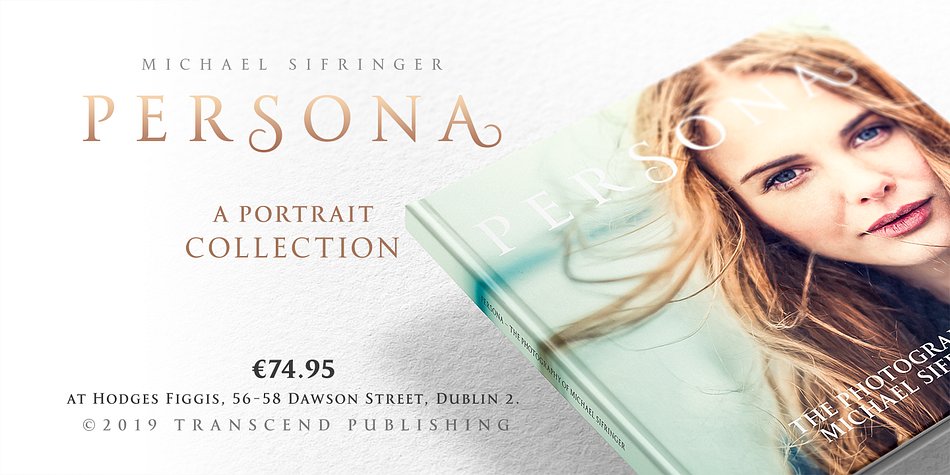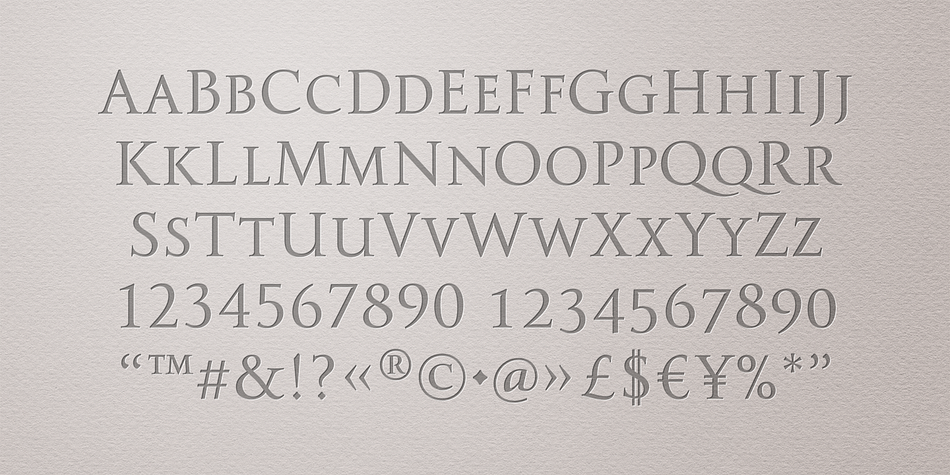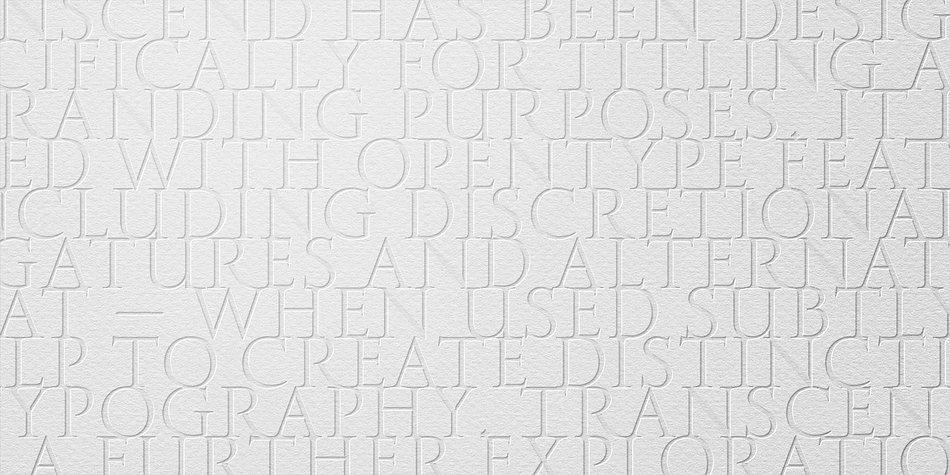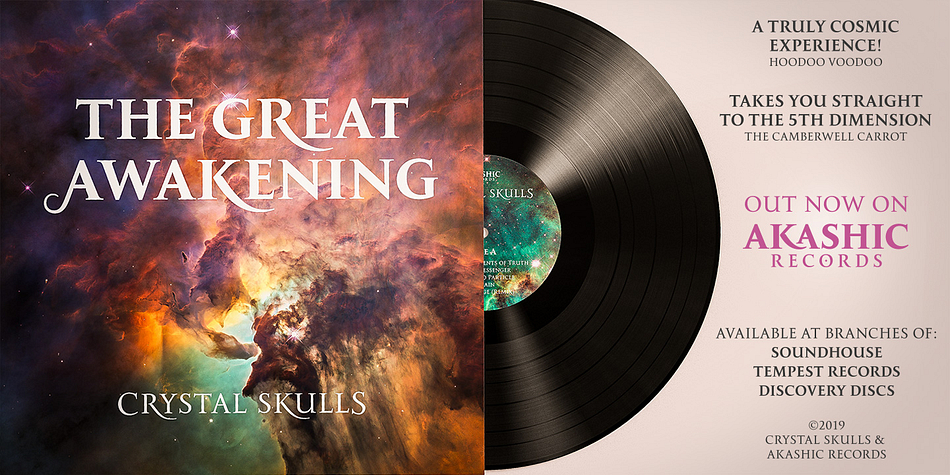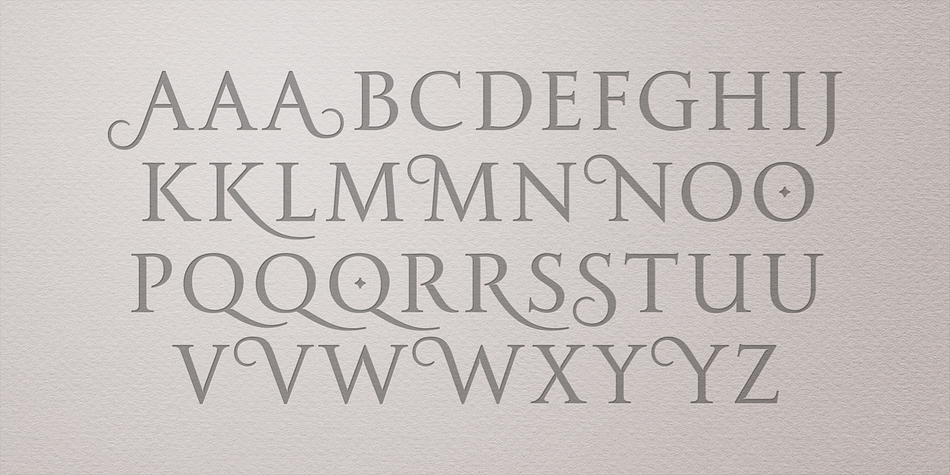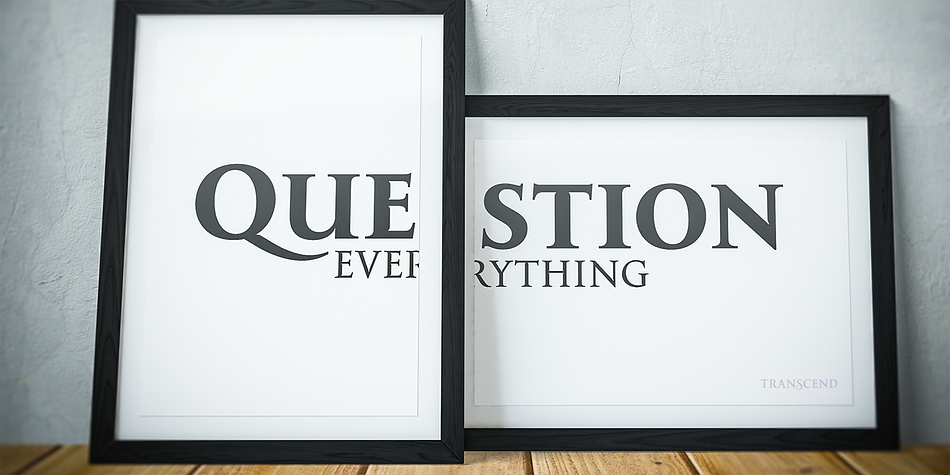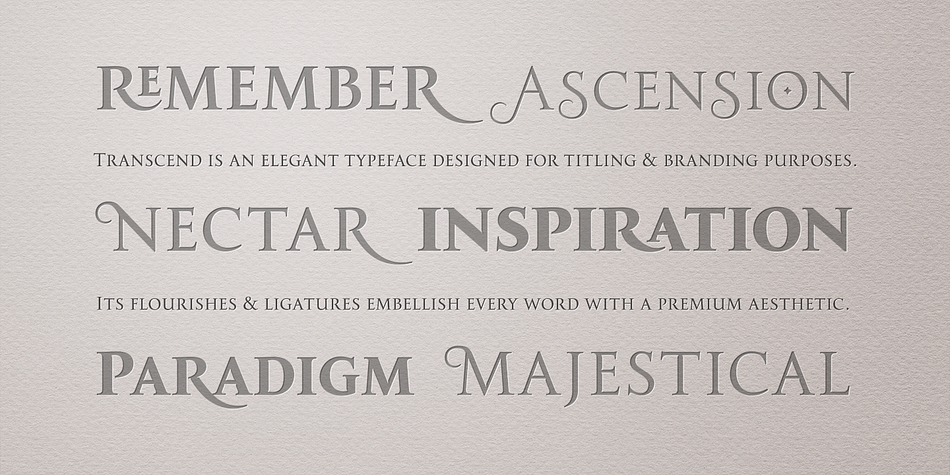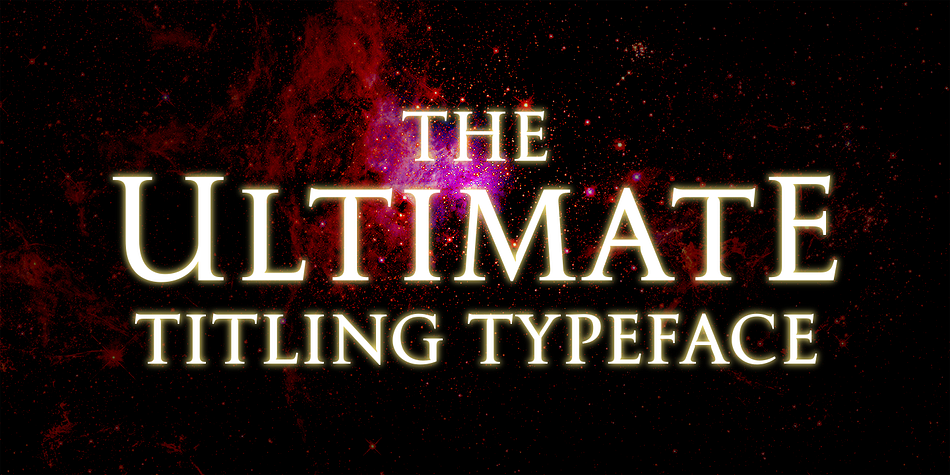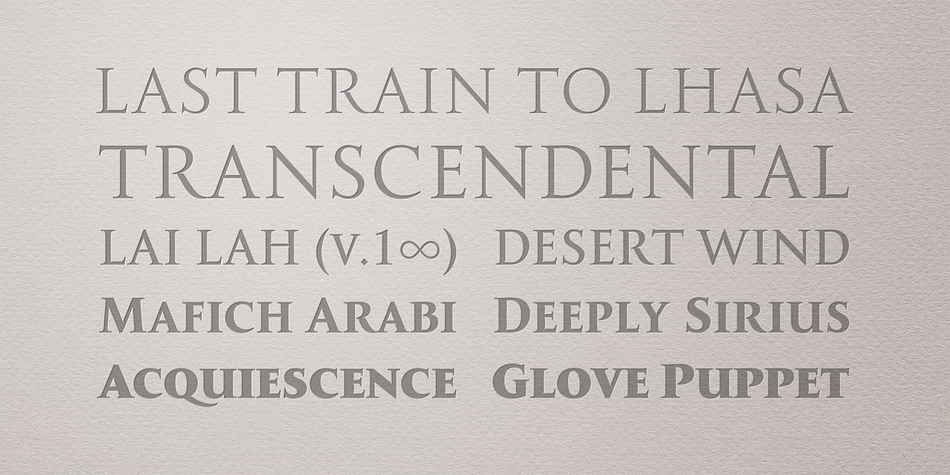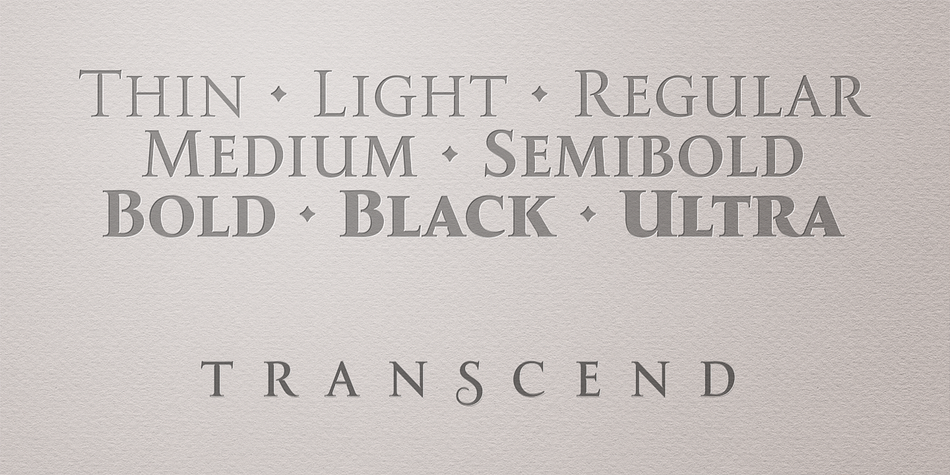
Designed by Paulo Goode, Transcend is a display serif font family. This typeface has eight styles and was published by Paulo Goode.
Transcend has been designed specifically for titling and branding purposes. This 8-font, all caps typeface is packed with OpenType features including discretionary ligatures and alternates that – when used subtly – help you to create distinctive headline typography. Transcend aims to be “The Ultimate Titling Typeface”.
This typeface is an exploration of my own “Carrig” from 2014. I have evolved its core personality and embellished it by means of crisp, sharp lines and serifs, adding stylised ink traps/notches, as well as carefully considered swashes, flourishes, and ligatures that add that touch of class and refinement to every word you type.